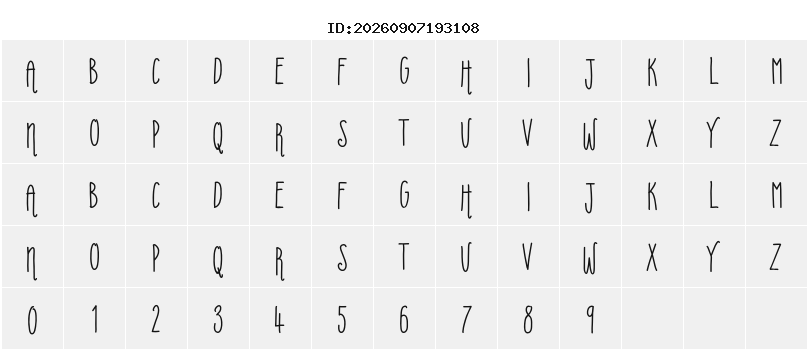
Uberfriends Preview
• Font Name: Uberfriends
• Full Font Name: Uberfriends
• PostScript Name: Uberfriends
• Manufacturer: Set Sail Studios
About Uberfriends.otf
Uberfriends.otf is a modern, elegant sans-serif font designed for ultimate readability and visual harmony. Perfect for branding, headlines, web design, and print materials.